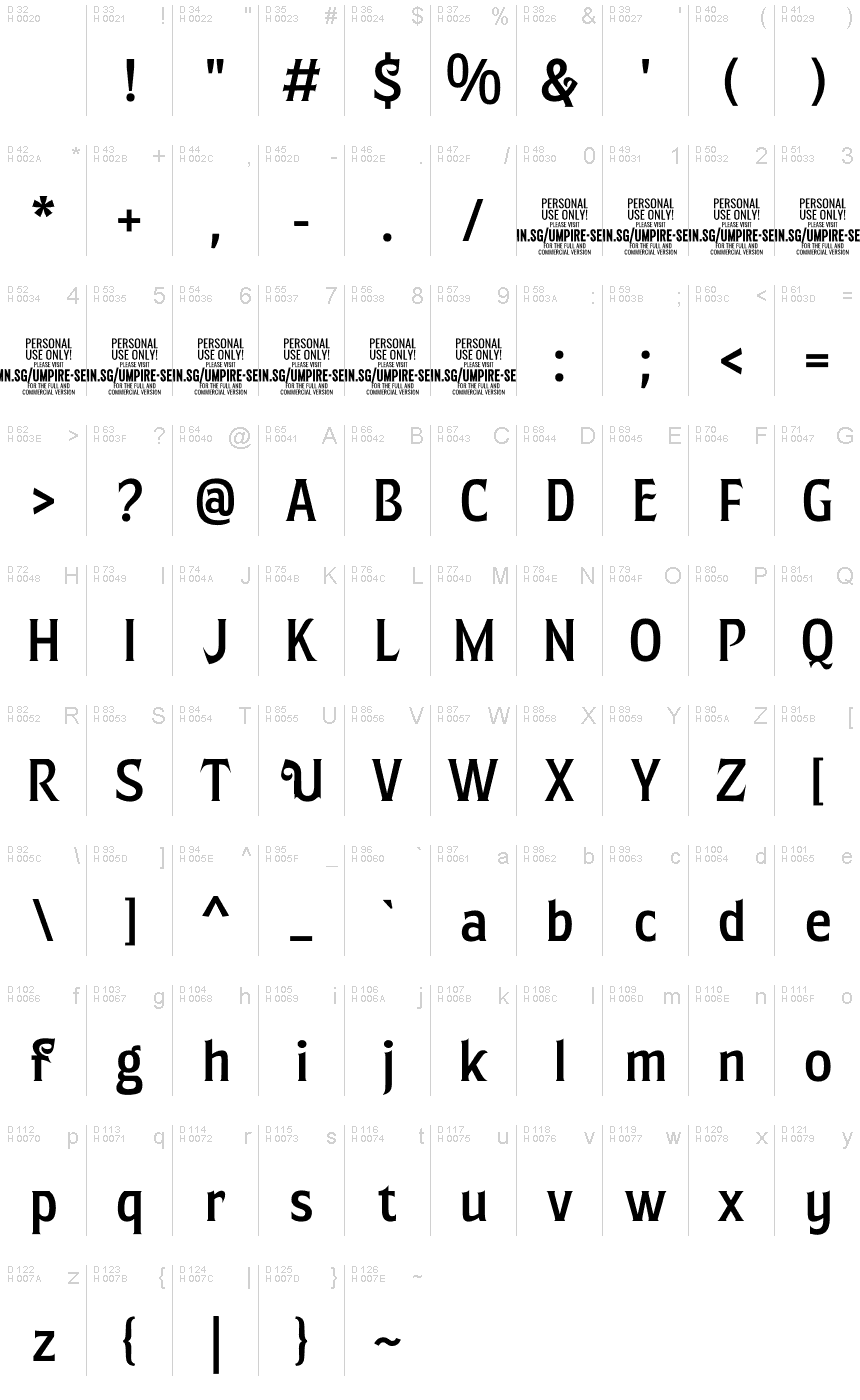
Umpire Serif Alt PERSONAL USE Regular
Umpire Serif Alt, a display font designed by Mans Greback, brings retro vibes to any project.
With its semi-light weight and Victorian grandeur, this font is perfect for creating vintage-inspired logos, signage, and branding materials. Each letter in Umpire Serif Alt is meticulously crafted to showcase its solid and heavy foundation, exuding a sense of steadfastness. Whether you're designing an old-school poster or revamping a classic website layout, Umpire Serif Alt adds a touch of elegance and nostalgia that transports viewers back in time.
Let this font be your guide as you embark on a journey through the golden age of design.